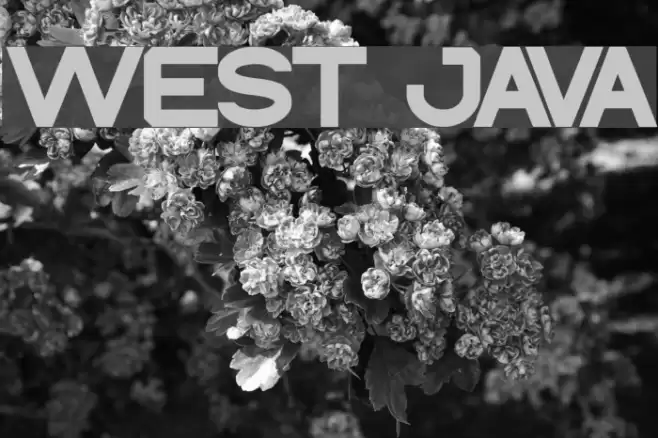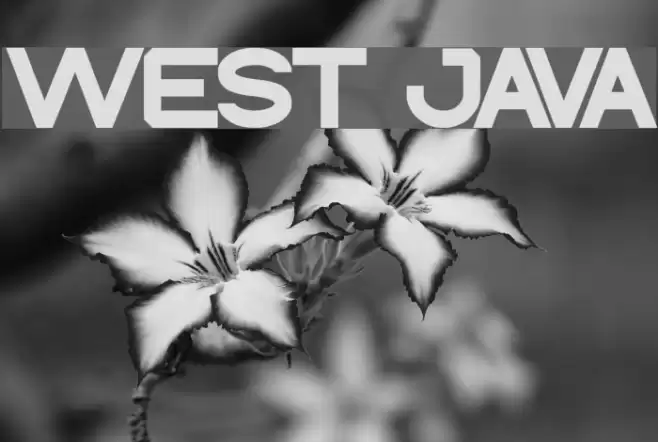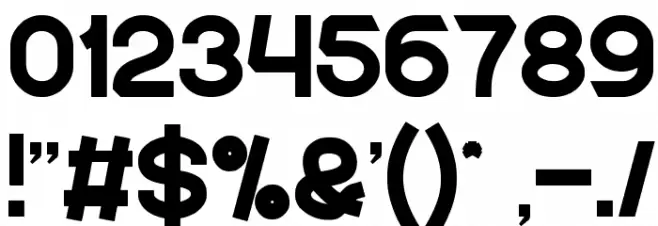
WEST JAVA Font
WEST JAVA Description
This font features a bold and modern design with clean, geometric lines. The uppercase letters are strong and impactful, while the lowercase letters maintain a consistent weight and structure. The numerals are clear and easy to read, making them suitable for various applications. Special characters are designed with the same boldness, ensuring uniformity across all glyphs. The overall appearance is sleek and contemporary, making it ideal for projects that require a strong visual presence.
A bold, modern font with geometric lines and a sleek appearance from Uncategorized fonts.
- Proposed Projects: Ideal for branding, headlines, posters, and digital media where a strong visual impact is needed.